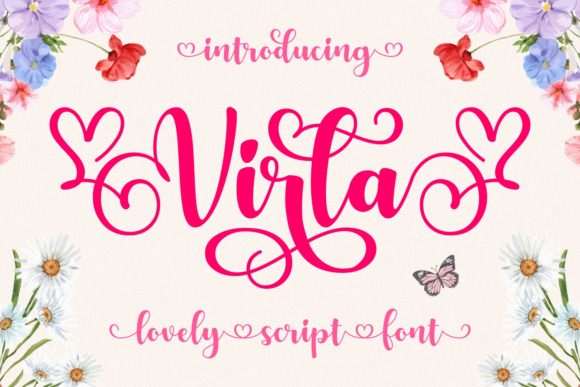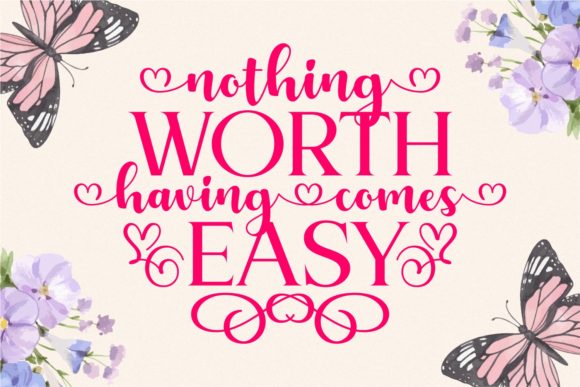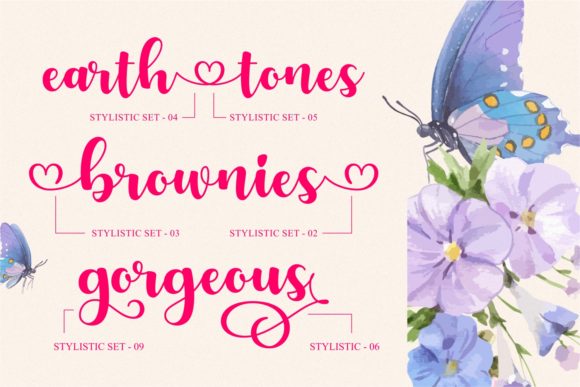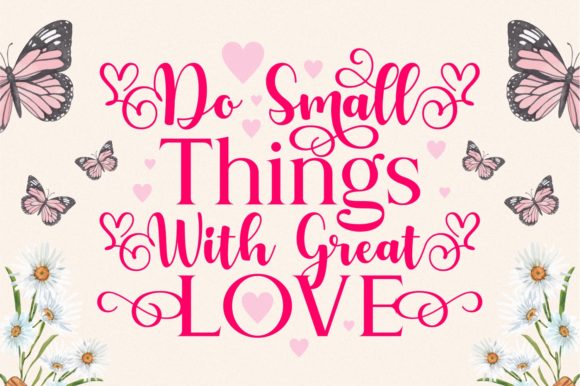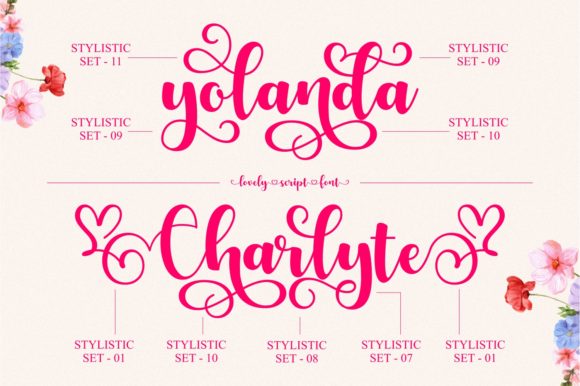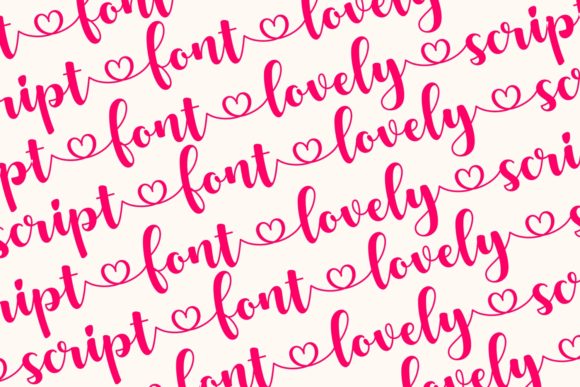
Virla Font
About Virla Font
Virla is a sweet, all round and flexible handwritten font. Warm, romantic and jolly, this font will turn each of your project ideas into real works of art. Have fun with this beautiful font and explore its endless variations. This font is PUA encoded which means you can access all of the glyphs and swashes with ease!